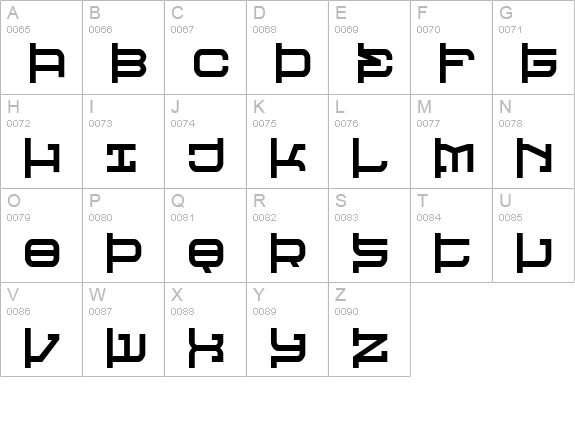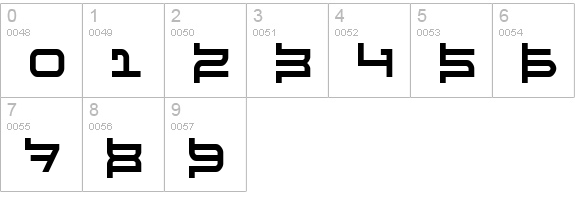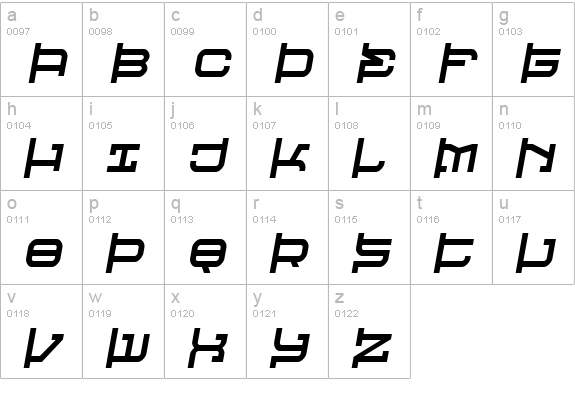
Raveheart Font Details
Introducing Raveheart, a stunning font that is sure to capture the attention of any audience. With its bold and energetic letterforms, Raveheart exudes an electrifying energy that is perfect for creating eye-catching designs. This font is not only visually striking, but it also offers a sense of freedom and creativity. Each letter is carefully crafted to make a bold statement, allowing your words to come alive on the page or screen. Whether you're designing a poster, logo, or website, Raveheart will add a touch of excitement and flair to your project. The best part? Raveheart is freely available to download at FontsMarket.com. Now you can enhance your designs without breaking the bank. This font is a testament to the belief that great design should be accessible to all, and FontsMarket.com is proud to offer it for free. So go ahead, unleash your creativity and download Raveheart today! With Raveheart, you have the power to create visually stunning designs that will leave a lasting impression. Its unique and captivating style is sure to make your work stand out from the crowd. So don't miss out on this opportunity to elevate your design game - head over to FontsMarket.com and download Raveheart for free now!